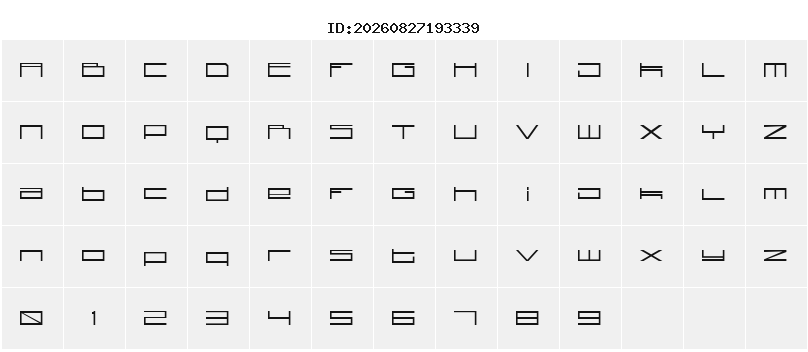
technoid Preview
• Font Name: technoid
• Font Style: one
• Font ID: beyond design technoid one
• Full Font Name: technoid one
• PostScript Name: Technoidone
About technoid.ttf
technoid.ttf is a modern, elegant sans-serif font designed for ultimate readability and visual harmony. Perfect for branding, headlines, web design, and print materials.